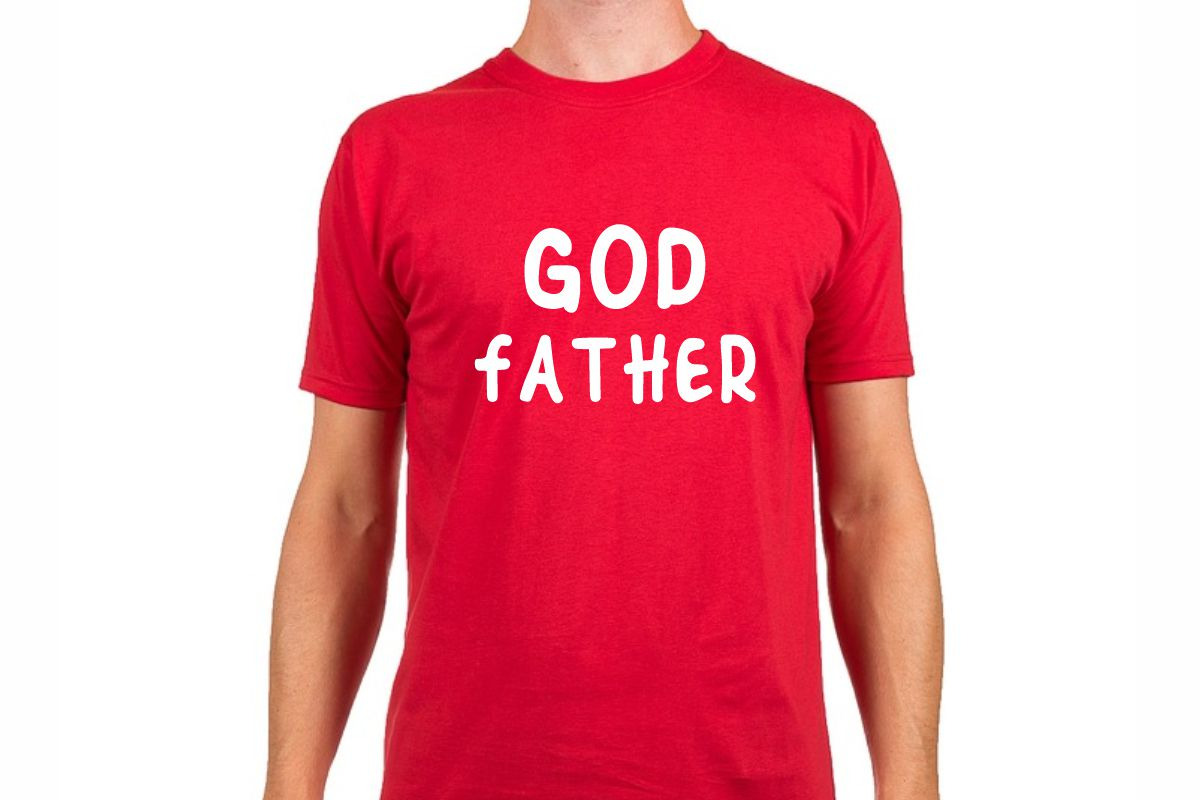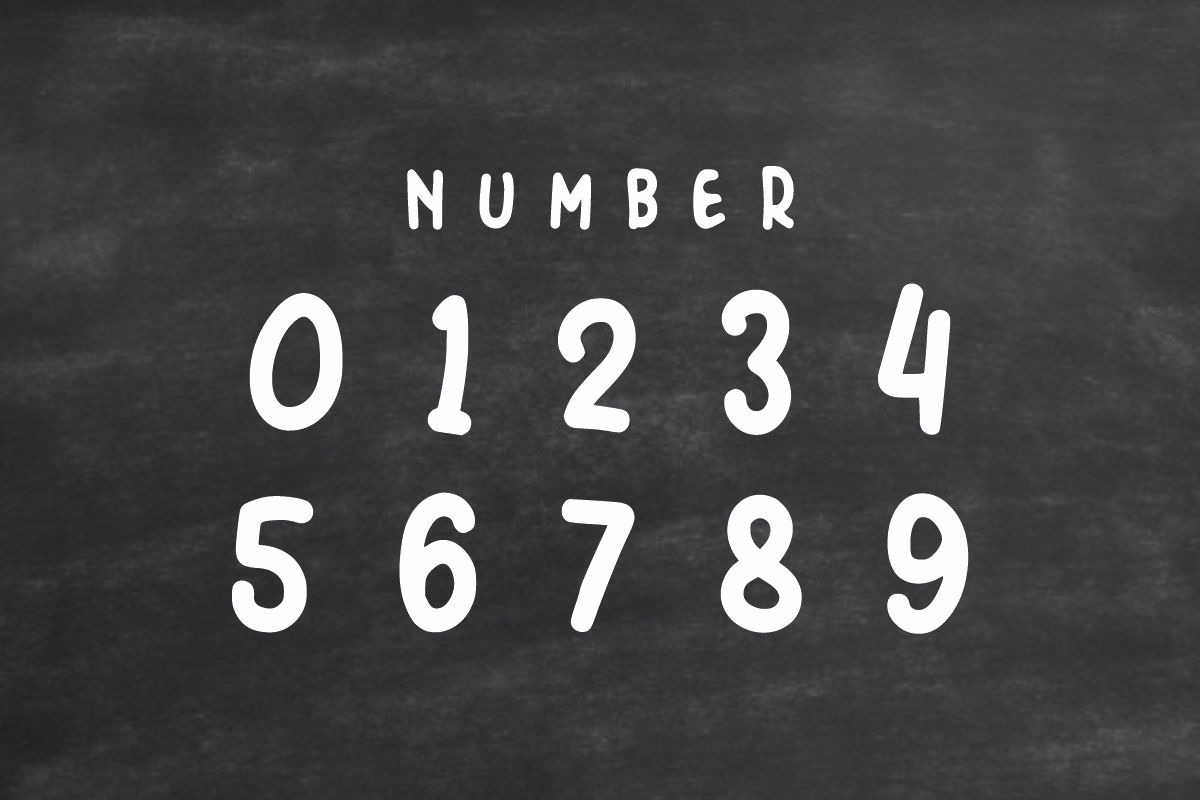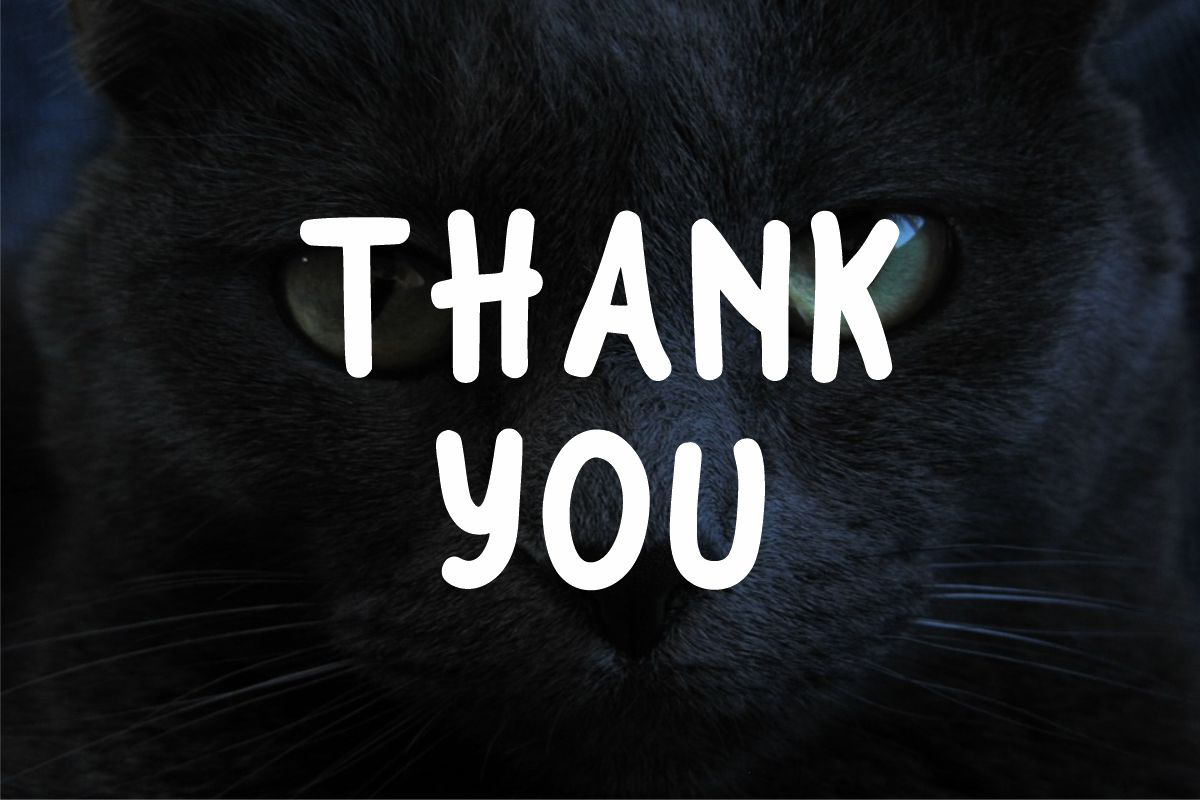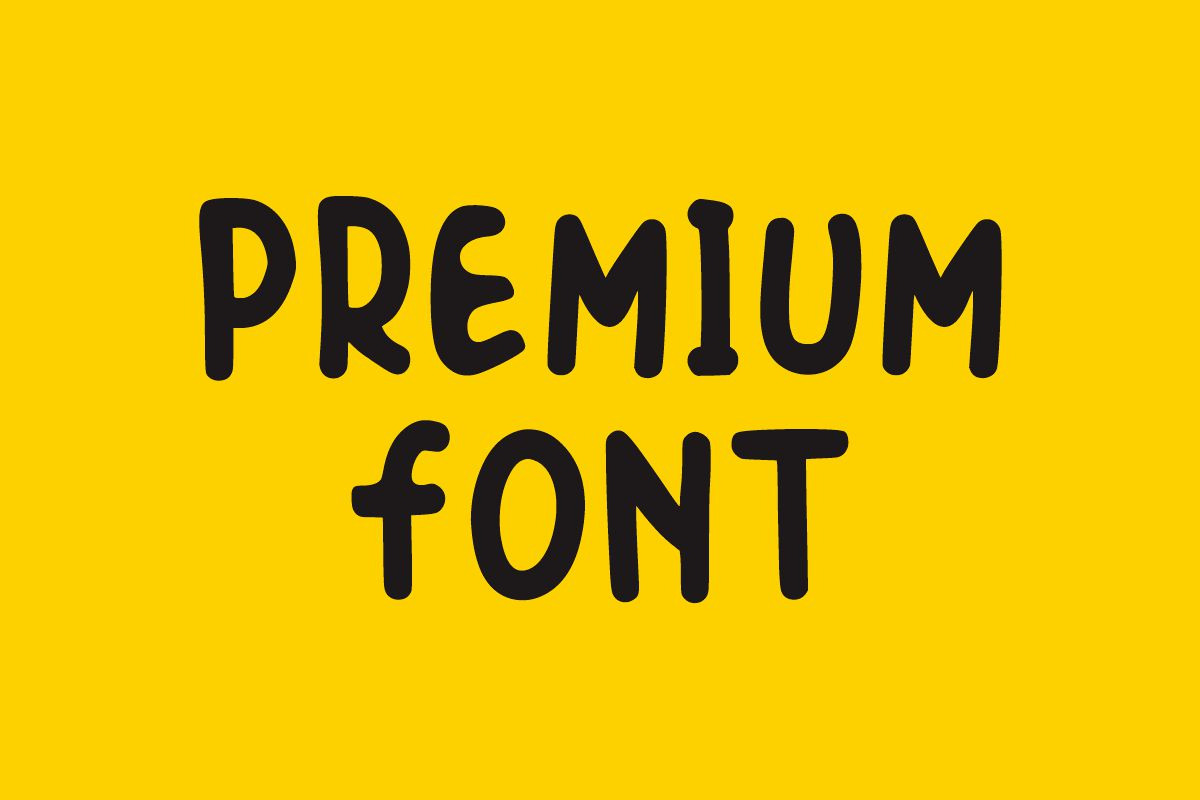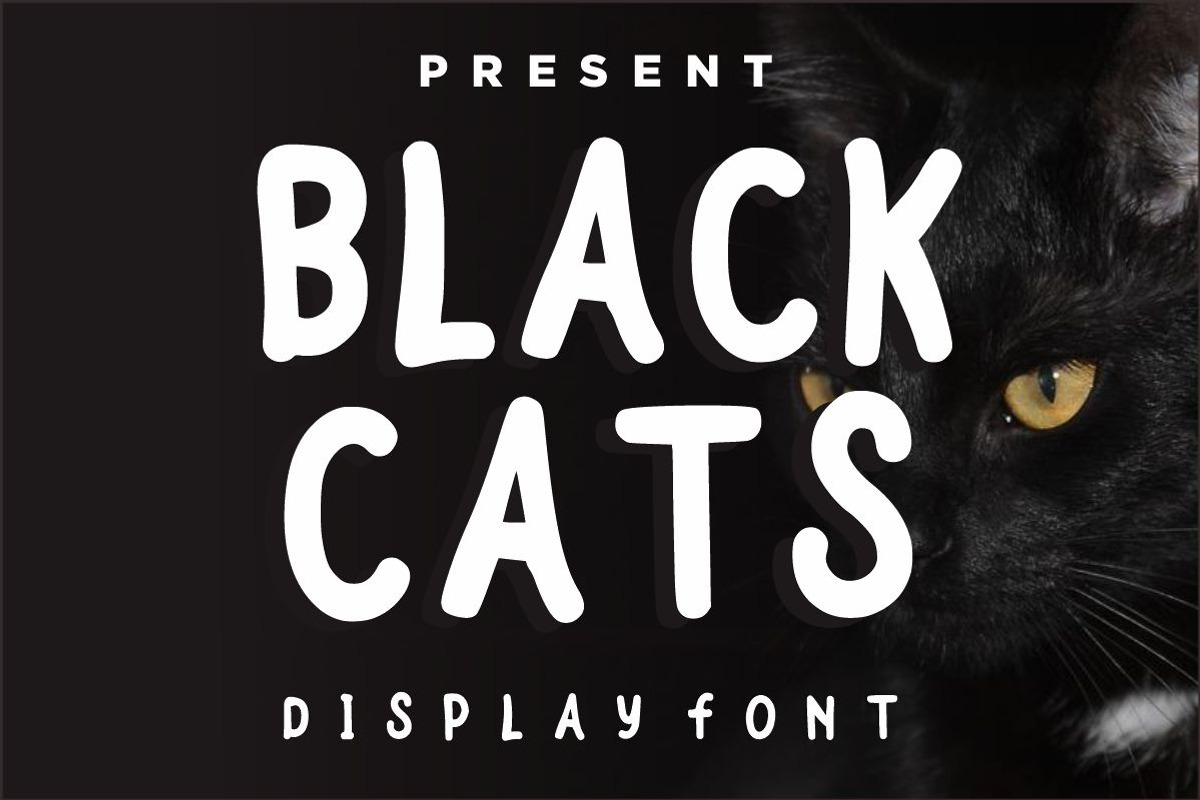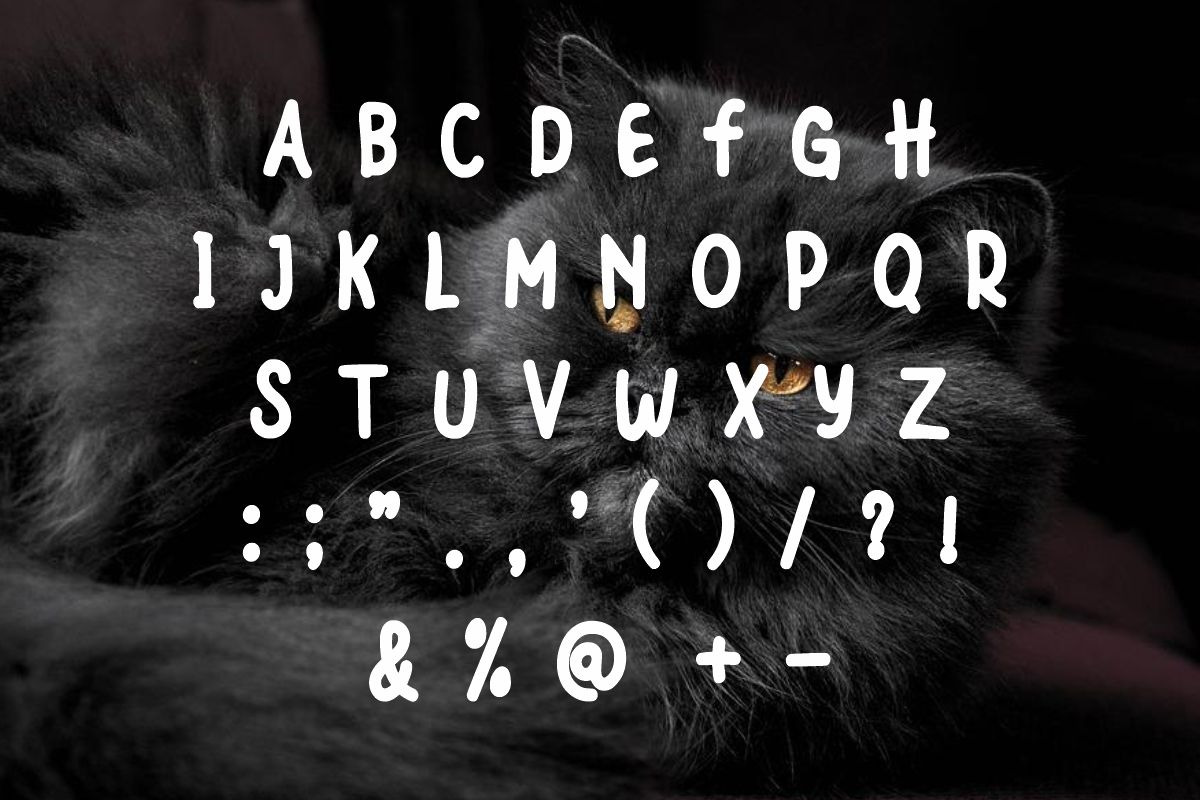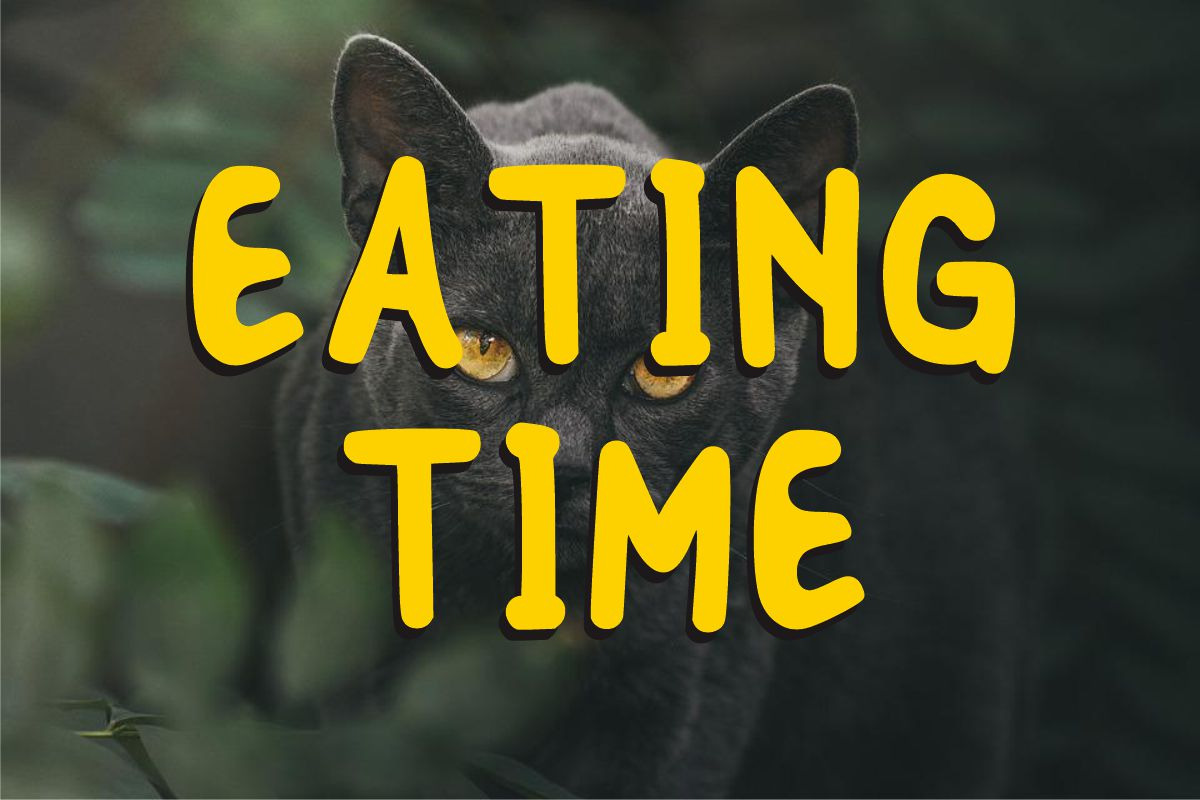
Black Cats - Cartoon Font
Black Cats is a cute and bold display font. It features a dynamic effect and a unique charm. It is perfect for school posters, Social Media templates, text effects, logos, or monogrammed designs.